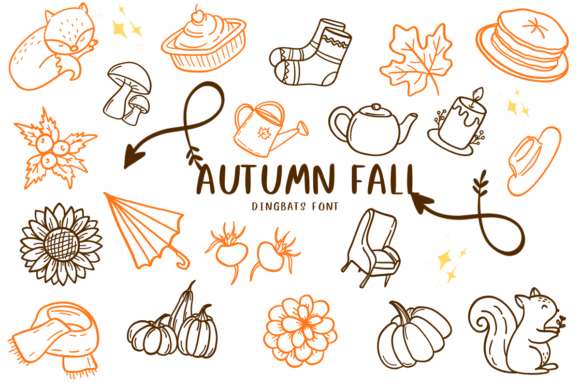
Autumn Fall Font: Elevate Your Creative Projects with a Natural Touch
As the seasons change and autumn leaves start to fall, we are reminded of the beauty and coziness that comes with this time of year. For designers, crafters, and creative enthusiasts, the autumn season offers a wealth of inspiration for projects. One of the key elements in creating visually appealing and thematic designs is the choice of font. This is where the Autumn Fall Font comes into play – a dingbats font with a natural theme that can significantly enhance your creative projects.
What is Autumn Fall Font?
The Autumn Fall Font is a unique dingbats font designed with an autumnal theme in mind. Dingbats fonts, also known as symbol fonts, consist of graphical symbols, icons, and glyphs rather than traditional alphabetic characters. The Autumn Fall Font is specially crafted to bring the essence of autumn into your designs, making it perfect for a wide range of creative projects.
Features of Autumn Fall Font
Natural Theme
The Autumn Fall Font boasts a natural theme that captures the spirit of the autumn season. With elements such as leaves, acorns, pumpkins, and other seasonal icons, this font allows you to add a touch of nature to your designs.
Versatility
One of the standout features of the Autumn Fall Font is its versatility. Whether you’re working on wedding invitations, DIY crafts, decorations, logos, or any other creative project, this font can be seamlessly integrated to match your theme.
Applications of Autumn Fall Font
Wedding Invitations
Autumn is a popular season for weddings, with its warm colors and romantic ambiance. The Autumn Fall Font can add a personalized and thematic touch to your wedding invitations, setting the tone for your special day.
DIY and Crafts
For DIY enthusiasts and crafters, the Autumn Fall Font offers endless possibilities. Use it to create custom signs, banners, and decorations that reflect the beauty of the season.
Decorations
Whether you’re decorating your home or a commercial space, the Autumn Fall Font can be used on signs, wall art, and other decorative items to create a cohesive autumnal theme.
Logos and Branding
For businesses looking to incorporate an autumnal theme into their branding, the Autumn Fall Font can be a valuable asset. It can be used to create logos, packaging, and marketing materials that stand out and resonate with your target audience.
The Autumn Fall Font is a versatile and creative dingbats font that can elevate your projects with its natural and thematic design. Whether you’re a designer, crafter, or simply someone who loves the autumn season, this font offers a wide range of possibilities for creative expression. By incorporating the Autumn Fall Font into your projects, you can add a unique and personalized touch that captures the essence of autumn.